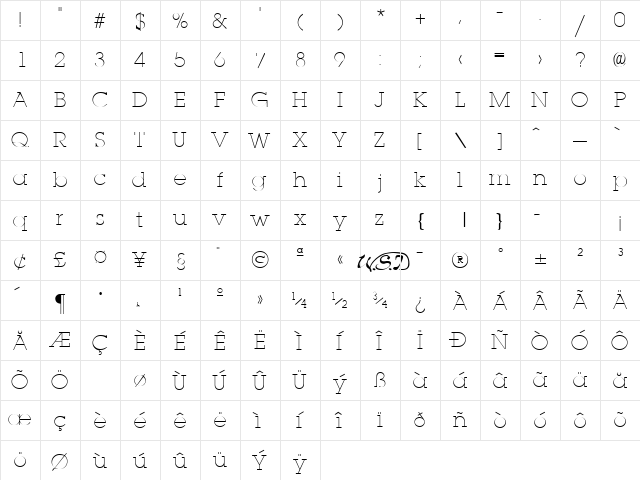
Lapland Light Regular
Design Context for Lapland Light Typeface
Lapland Light offers clean, dependable letterforms without strong stylistic allegiance, making it a practical choice for designers who need flexibility. The delicate stroke weight brings airiness and refinement to layouts.